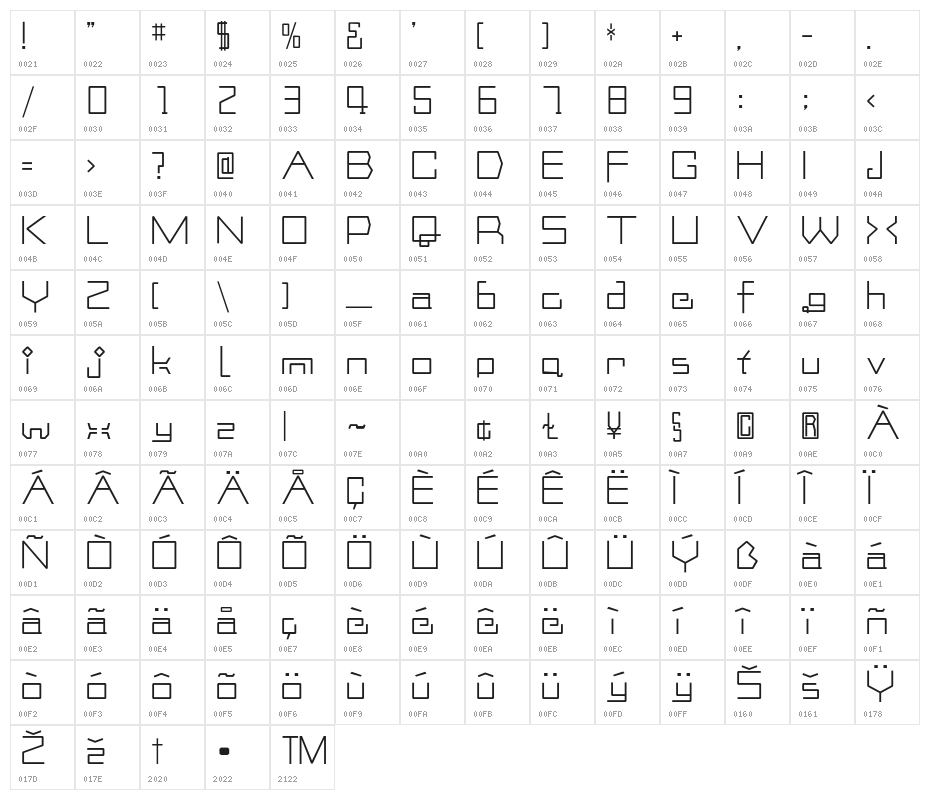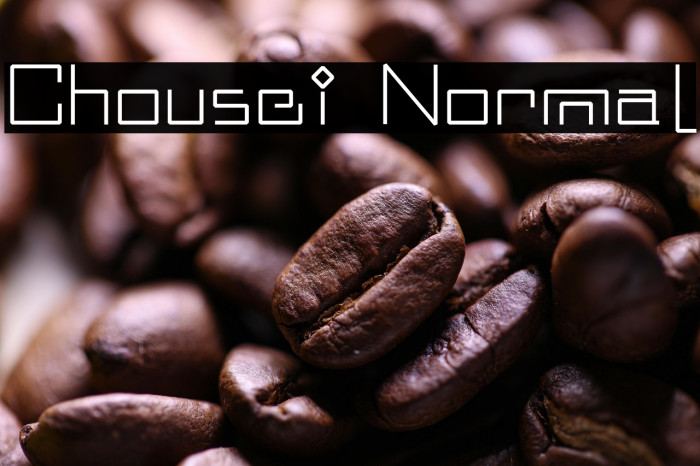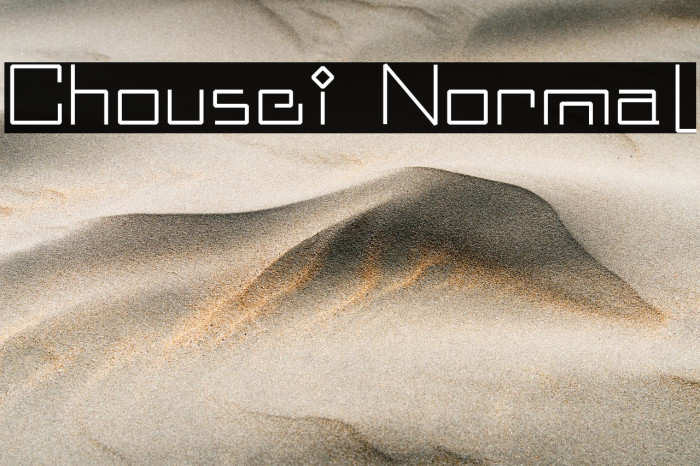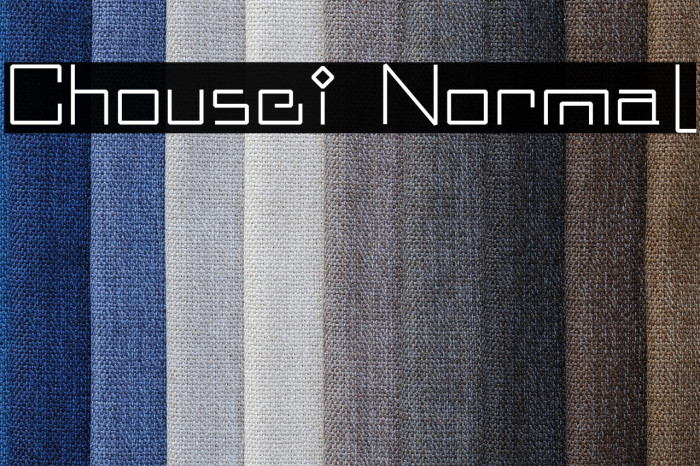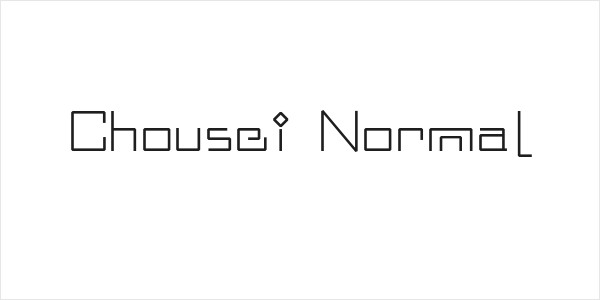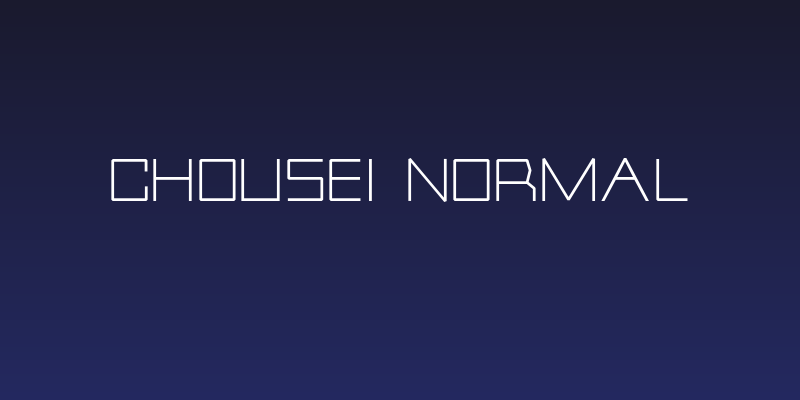
Chousei Normal Font
Chousei Normal Description
This font features a geometric and futuristic design, characterized by its angular and linear structure. The uppercase letters exhibit a distinct, almost mechanical appearance with sharp edges and a uniform stroke width. The lowercase letters maintain a similar style, offering a cohesive look across both cases. Numbers and special characters follow the same design principles, ensuring consistency throughout. The font's clean lines and modern aesthetic make it suitable for projects that require a contemporary and technical feel.
| Use Case | Headlines, Logos, Digital interfaces |
| Proposed Projects | Ideal for technology branding, sci-fi themed designs, digital interfaces, and modern posters. |